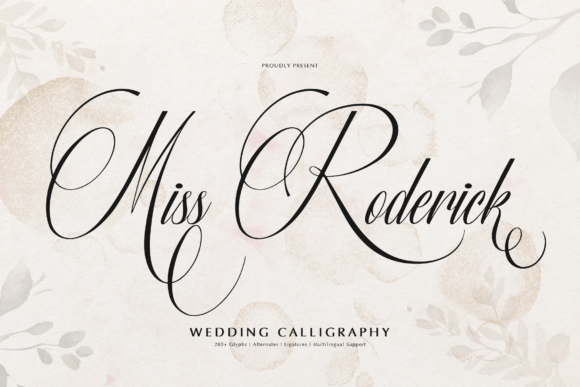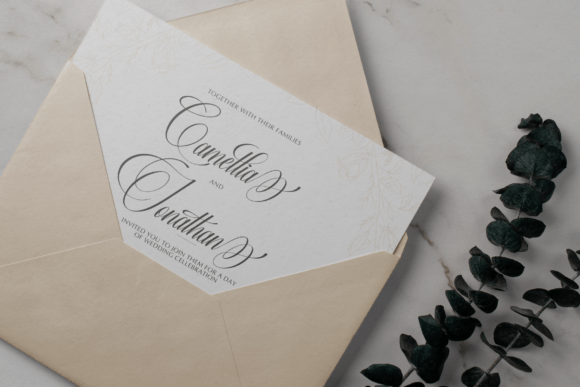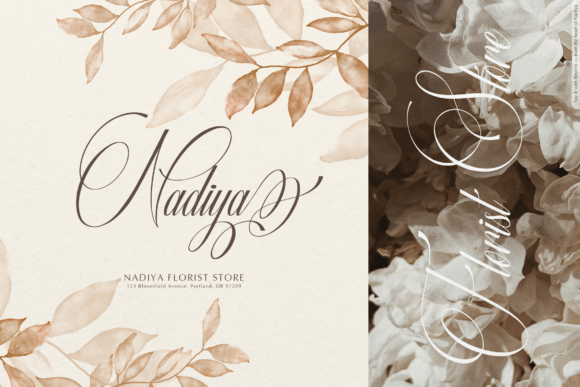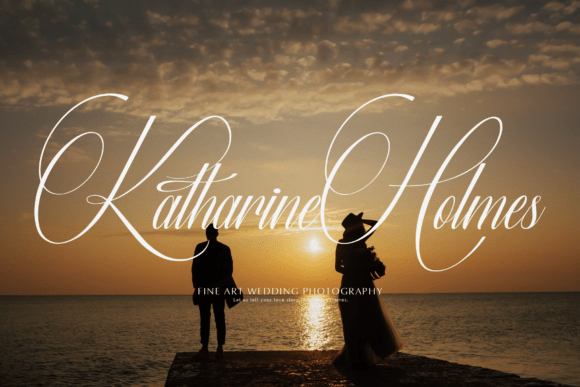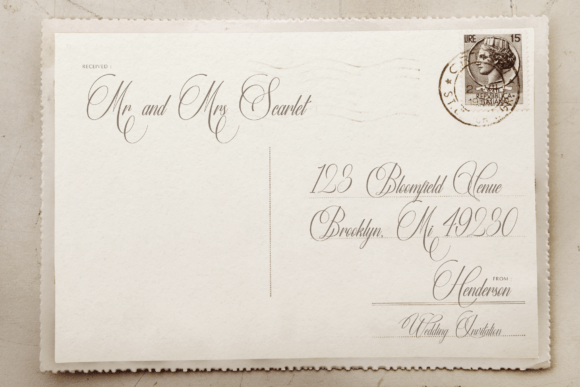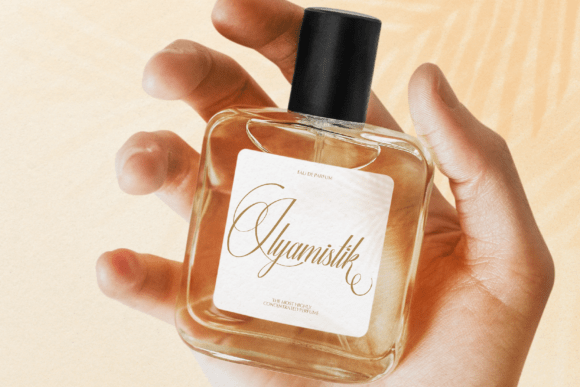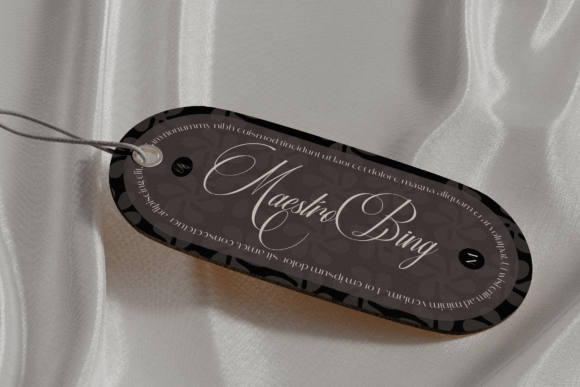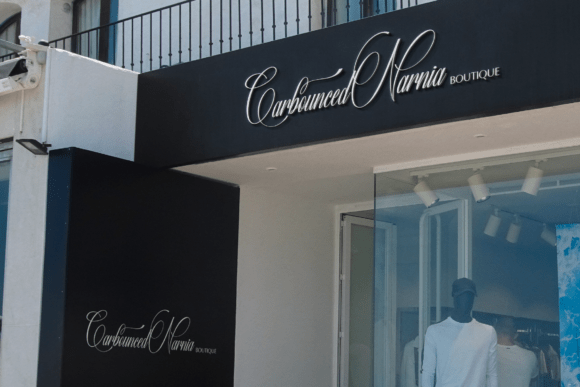
Miss Roderick Font
Miss Roderick is a stunning wedding calligraphy font that radiates sophistication and romantic flair. With its graceful loops, refined thin strokes, and high contrast lines, this typeface is perfect for formal invitations, elegant branding, and upscale stationery. Featuring over 280 glyphs, stylistic alternates, ligatures, and multilingual support, Miss Roderick is both beautiful and versatile — an ideal choice for bridal suites, heartfelt quotes, and signature-style logos.